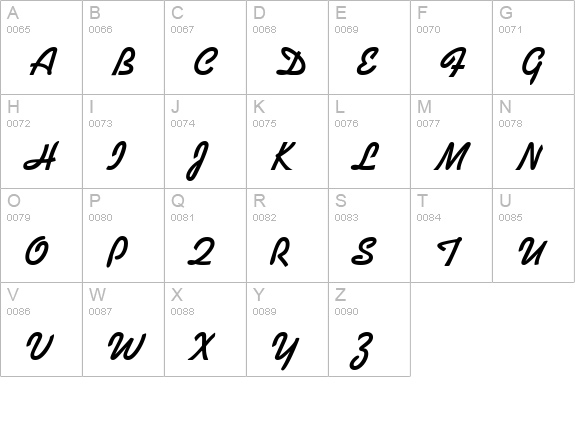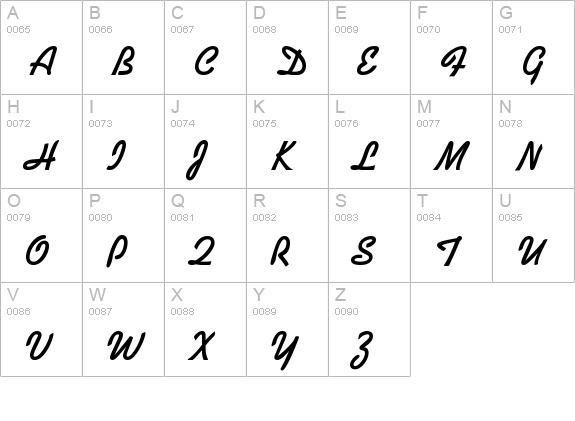
Prose Script SSi Bold Font Details
Prose Script SSi Bold is a strong, high-contrast variant in the Prose typeface family \xE2\x80\x94 well suited to headlines, attention-grabbing titles, and strong calls-to-action.
Prose Script SSi Bold font is a stunning and elegant typeface that exudes sophistication and charm. With its bold strokes and graceful flourishes, this font is perfect for adding a touch of class to any design project. Whether you're working on invitations, branding materials, or editorial layouts, Prose Script SSi Bold font will make your text stand out beautifully. The best part is that this exquisite font is available for free download at FontsMarket.com. So, you can easily elevate your designs without breaking the bank. Don't miss out on the opportunity to enhance your projects with the timeless appeal of Prose Script SSi Bold font. Download it today and start creating stunning visuals that will leave a lasting impression.